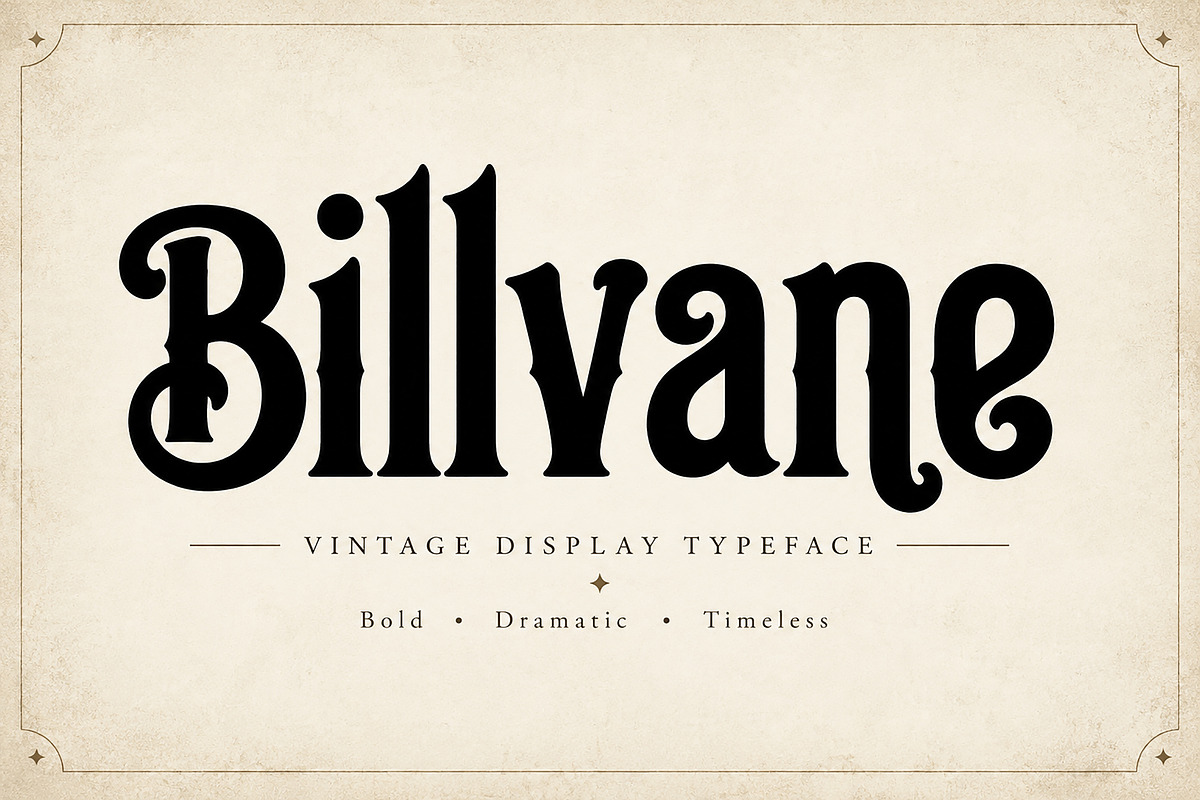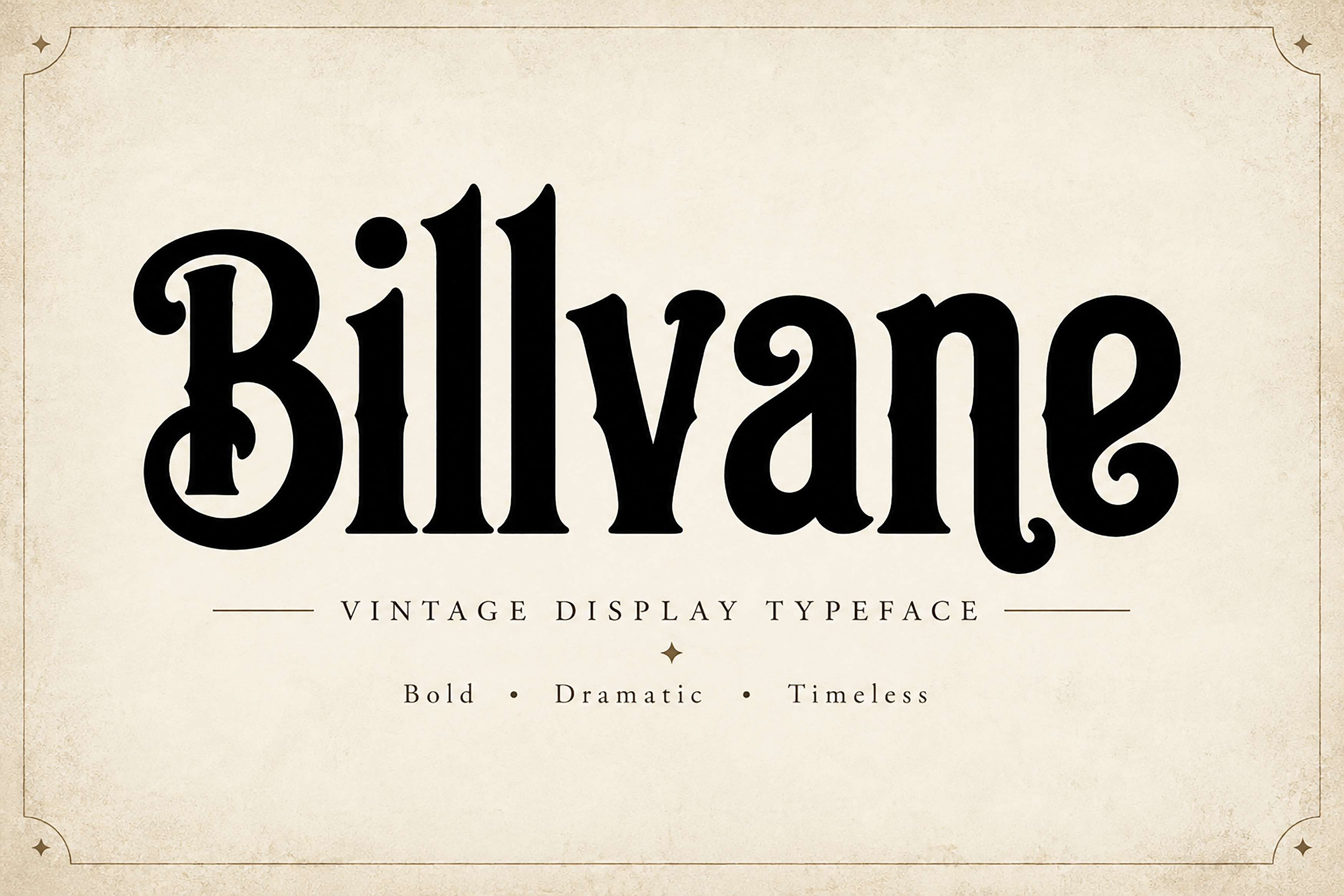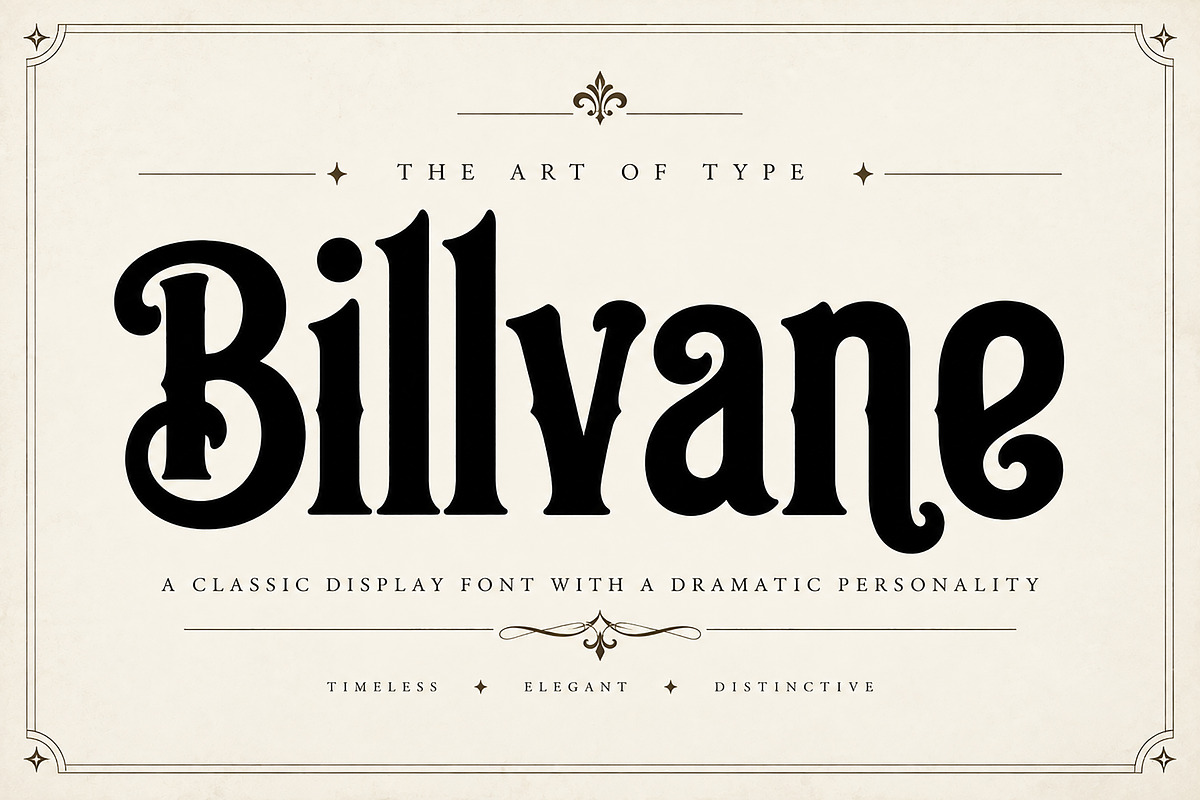
Billvane — Vintage Display Font
Billvane is a bold and expressive vintage display typeface designed to make your typography stand out. Featuring dramatic curves, distinctive serif details, and a strong retro character, Billvane brings an elegant yet powerful personality to your creative projects.
Perfect for creating eye-catching logos, branding, posters, headlines, editorial designs, packaging, labels, badges, invitations, merchandise, and other display-focused designs.
Its strong and decorative letterforms work especially well when you need typography with a memorable vintage presence and a sophisticated old-school aesthetic.
Logo & Logotype Design
Branding & Visual Identity
Posters & Advertising
Editorial & Magazine Titles
Packaging & Labels
Headlines & Display Typography
Badges & Emblems
Invitations & Stationery
Merchandise & Apparel
Creative Marketing Materials
Bold vintage display style
Decorative serif letterforms
Strong and distinctive personality
Eye-catching headline appearance
Suitable for branding and display design
Designed for large-scale typography
Bring a bold vintage character to your next creative project with Billvane.